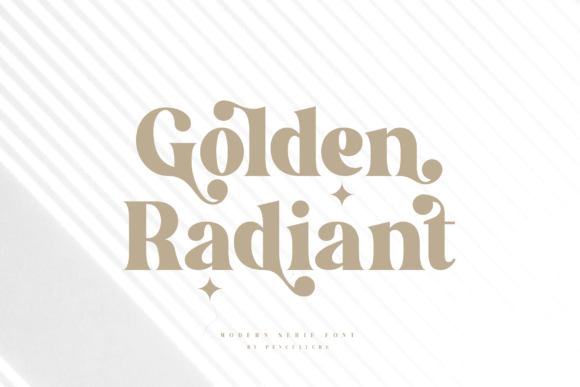
Introducing Golden Radiant Font: Elevate Your Designs with Elegance
In the world of typography, a well-crafted font can make all the difference in elevating your design projects from ordinary to extraordinary. If you’re on the hunt for a modern serif font that exudes elegance and sophistication, look no further than Golden Radiant Font. This stunning typeface boasts an elegant curve in each letter, accompanied by an array of alternates, making it the perfect addition to your design arsenal.
Key Features of Golden Radiant Font
- Modern Serif Design: Golden Radiant Font features a modern serif design that adds a touch of elegance to any project.
- Elegant Curves: Each letter in the font boasts an elegant curve, providing a smooth and refined aesthetic.
- Alternates: The font comes with 60 elegant alternates, allowing you to add variety and uniqueness to your designs.
- Multilingual Support: The font supports multiple languages, ensuring that you can use it for projects across the globe.
Ideal for a Wide Range of Design Projects
Golden Radiant Font is an incredibly versatile typeface that can be used for a variety of design projects, including:
- Branding: Create a lasting impression with your brand’s identity using Golden Radiant Font.
- Logo Design: Design a logo that stands out from the crowd with the font’s elegant curves and alternates.
- Magazine and Editorial Design: Add a touch of sophistication to your magazine or editorial design with Golden Radiant Font.
- Poster Design: Create eye-catching posters that demand attention with the font’s modern serif design.
- Invitations: Make your invitations truly special with the font’s elegant uppercase and lowercase letters.
Font Specifications
Golden Radiant Font comes with an impressive set of features, including:
- Elegant Uppercase and Lowercase Letters: The font features beautiful uppercase and lowercase letters that are perfect for any design project.
- Numbers and Punctuation: The font includes numbers and punctuation marks, ensuring that you have everything you need to create stunning designs.
- 60 Elegant Alternates: With 60 alternates at your disposal, you can add a unique touch to your designs and make them stand out.
Why Choose Golden Radiant Font?
With so many fonts available, why should you choose Golden Radiant Font for your design projects? Here are just a few compelling reasons:
- Unique Design: The font’s modern serif design and elegant curves make it a standout in the world of typography.
- Versatility: Golden Radiant Font can be used for a wide range of design projects, from branding and logo design to magazine and poster design.
- Multilingual Support: The font’s multilingual support ensures that you can use it for projects across the globe.
Tips for Using Golden Radiant Font
To get the most out of Golden Radiant Font, here are a few tips to keep in mind:
- Experiment with Alternates: Don’t be afraid to experiment with the font’s 60 elegant alternates to add a unique touch to your designs.
- Pair with Other Fonts: Golden Radiant Font pairs well with other fonts, so don’t be afraid to try pairing it with different typefaces to create a unique look.
- Use for Headings and Titles: The font’s elegant curves and modern serif design make it perfect for headings and titles.
In conclusion, Golden Radiant Font is an exceptional modern serif font that is sure to elevate your design projects to new heights. With its elegant curves, alternates, and multilingual support, this font is perfect for a wide range of design applications. Whether you’re working on a branding project, designing a logo, or creating a magazine or poster, Golden Radiant Font is the perfect choice.